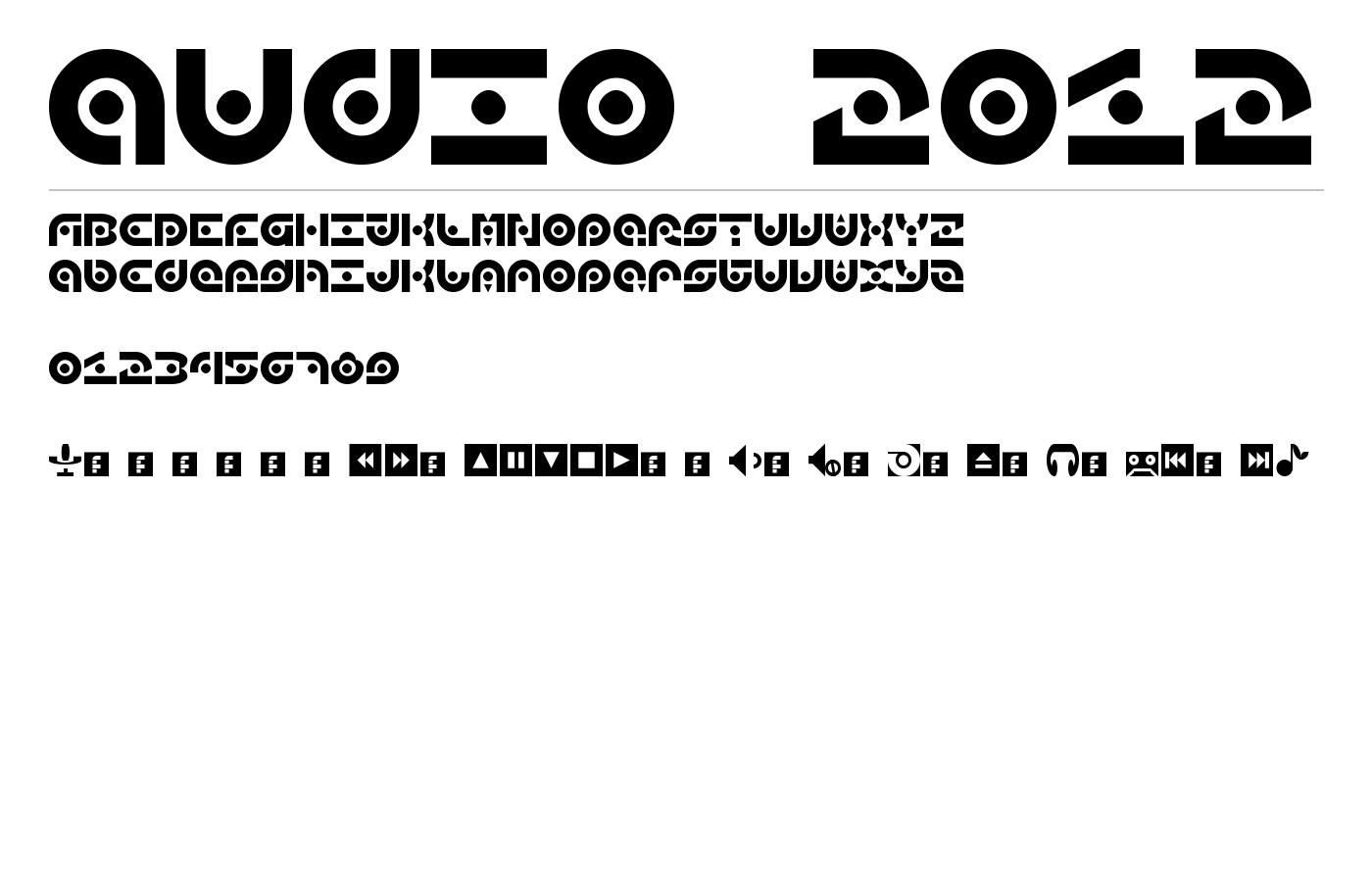
Audio 2012 is a bold, geometric sans serif font with a futuristic, almost digital aesthetic. Its heavy weight and compact shapes create a playful yet tech-savvy vibe, making it ideal for modern branding, electronic music visuals, and creative projects wanting a strong, avant-garde personality. The inclusion of unique symbol glyphs inspired by media controls enhances its connection to audio and multimedia themes.
audio 2012 Font
About audio 2012 Font
| Font family | audio 2012 Font |
| Designer | architaraz |